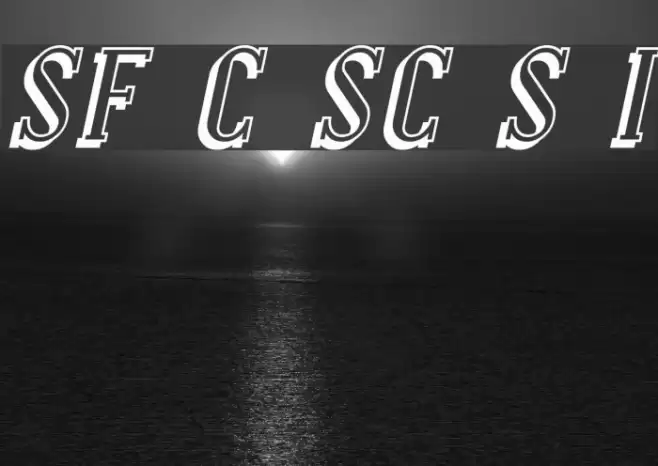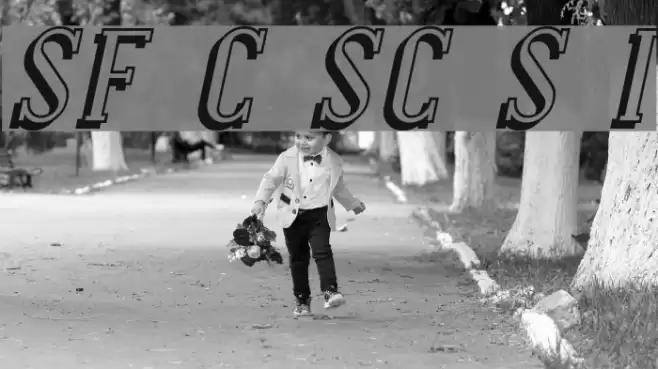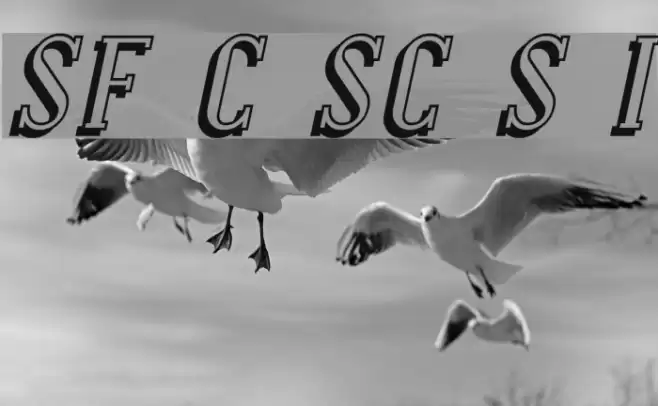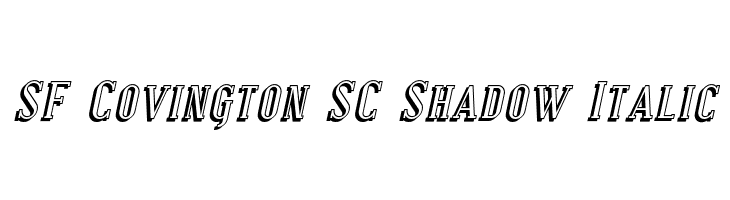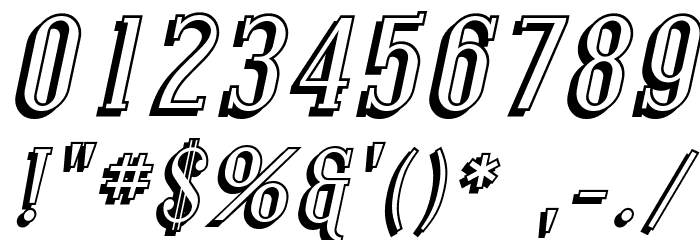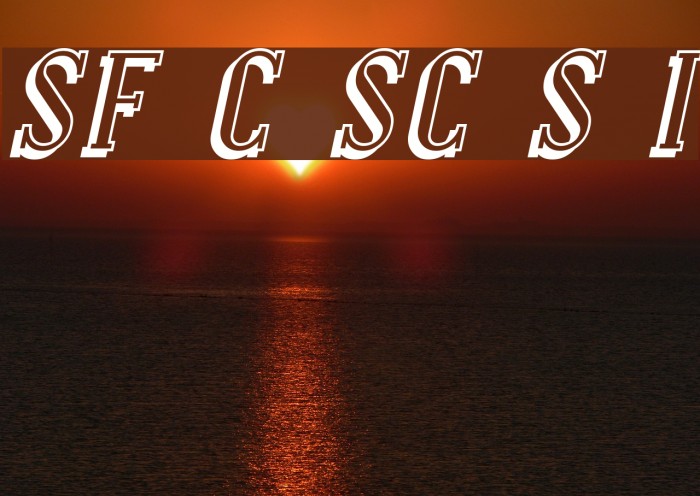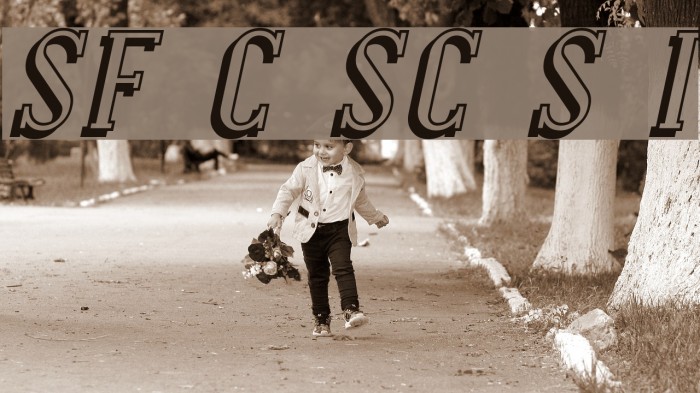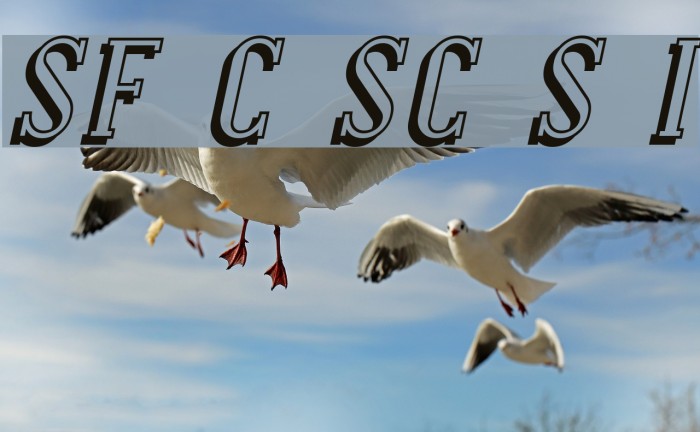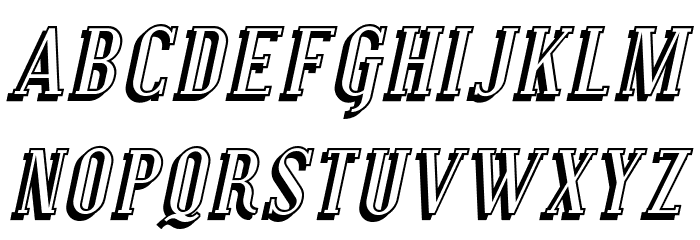
SF Covington SC Shadow Italic Font
SF Covington SC Shadow Italic Description
This font features a bold and dynamic style with a distinct shadow effect that adds depth and dimension to each character. The italicized form gives it a sense of movement and elegance, making it stand out in any design. The uppercase letters are strong and commanding, while the lowercase letters maintain a consistent style that complements the overall look. Numbers and special characters are designed with the same attention to detail, ensuring uniformity across all elements. The shadow effect is carefully crafted to enhance readability while maintaining a decorative appeal.
A bold, italicized font with a shadow effect, offering a dynamic and elegant style from Uncategorized fonts.
- Proposed Projects: Ideal for use in headlines, posters, branding, and any project requiring a bold, eye-catching typeface.